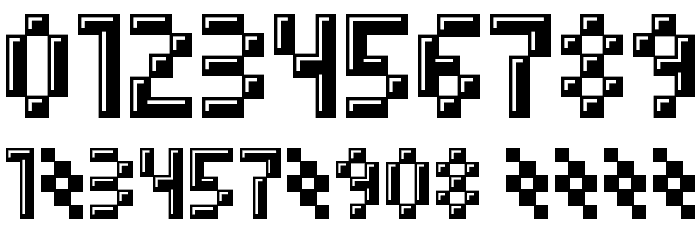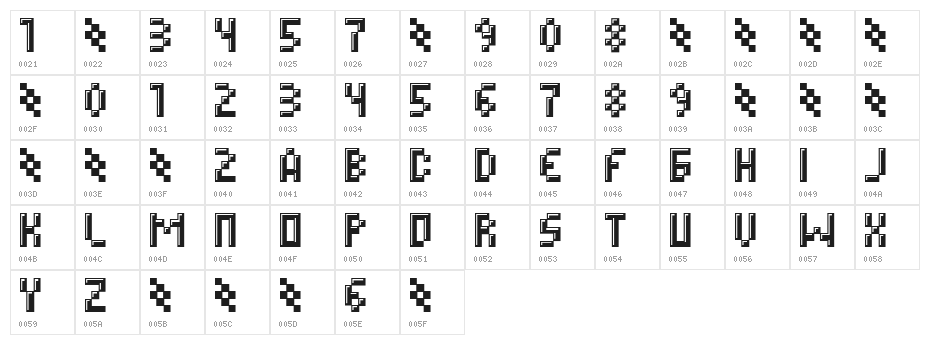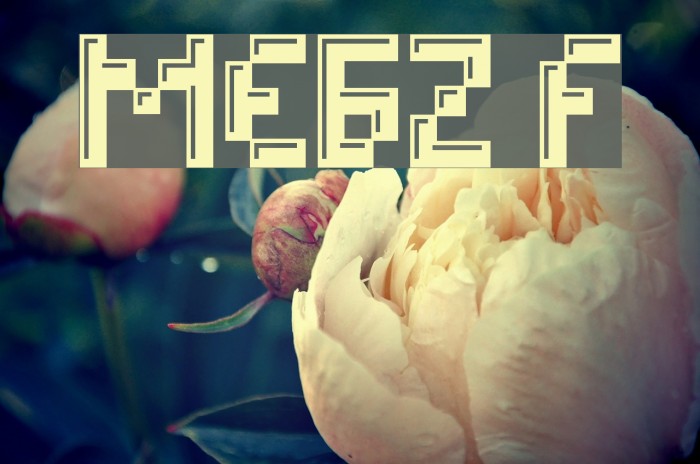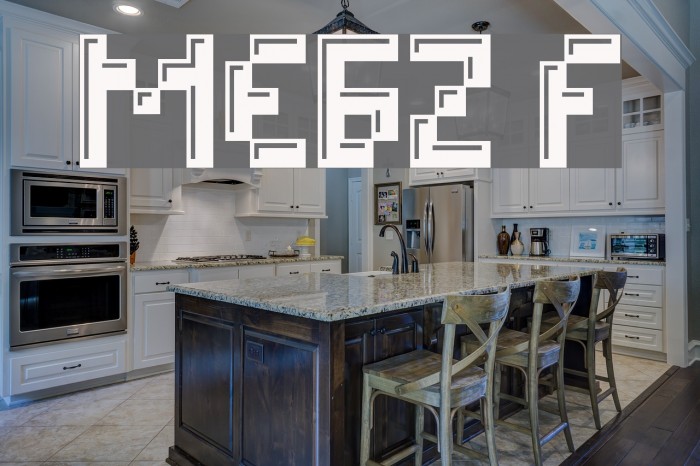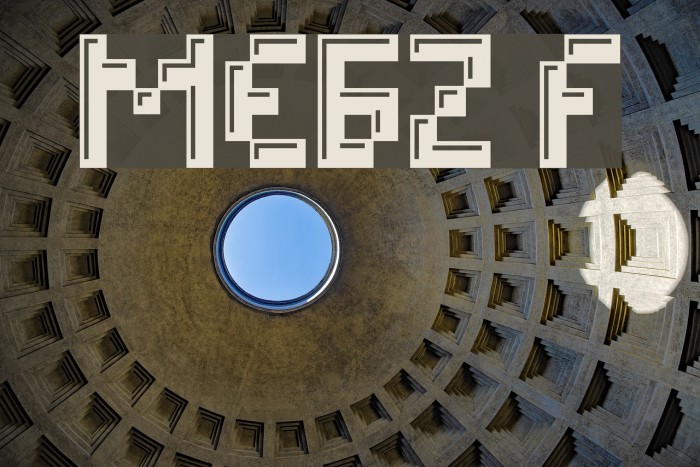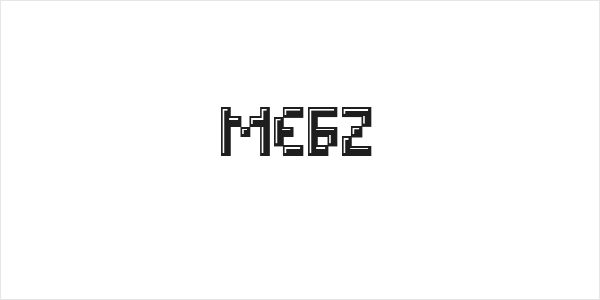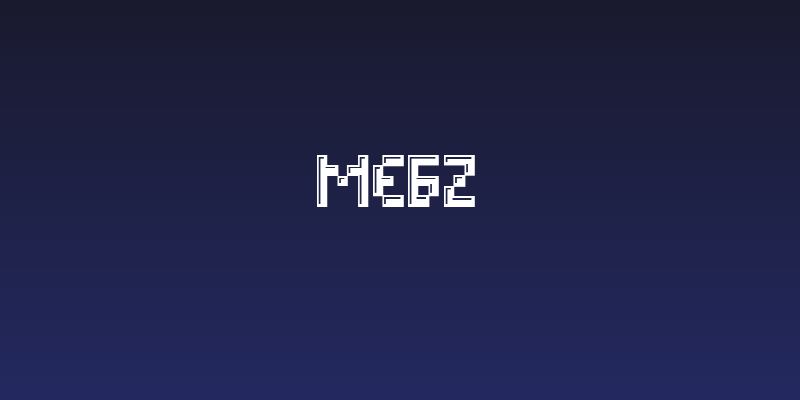
MEGZ Font
MEGZ Description
This font features a bold, pixelated design reminiscent of early digital or video game aesthetics. Each character is constructed with a blocky, geometric style, creating a sense of uniformity and structure. The uppercase and lowercase letters share a similar height, enhancing the font's cohesive appearance. Numbers and special characters maintain the same pixelated theme, ensuring consistency across all glyphs. The font's distinct style makes it ideal for projects that require a retro or digital feel, such as video game titles, tech-themed posters, or digital art projects.
| Proposed Projects | Ideal for video game titles, tech-themed posters, digital art projects, and retro designs. |